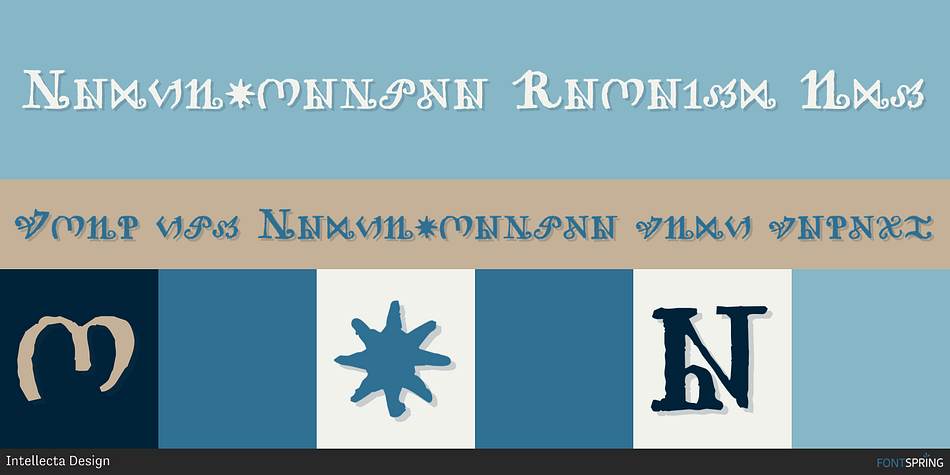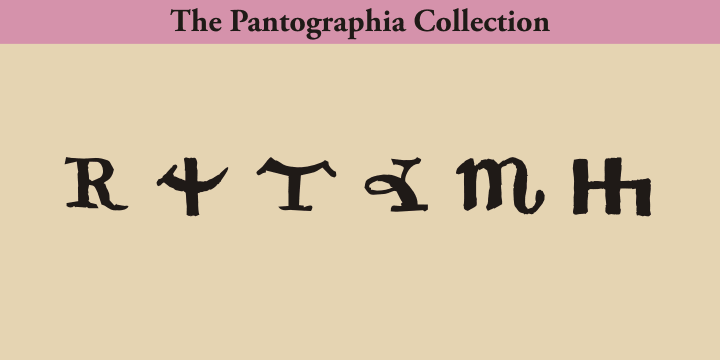
Pantographia Saracen One
Pantographia is an exotic, historical and novelty font family. This typeface has four styles and was published by Intellecta Design.
Pantographia Collection is a Intellecta digitization, in facsimile style, without artistical interpretation of any kind, of the work of Edmund Fry (monumental book), Pantographia, a work on languages containing over 200 alphabets.
Pantographia Collection is a Intellecta digitization, in facsimile style, without artistical interpretation of any kind, of the work of Edmund Fry (monumental book), Pantographia, a work on languages containing over 200 alphabets. We just are collecting in digital way these alphabets. Each alphabet has a short pdf description (see in the gallery). For example, in the pdf brochure of the “Saracen One” font, according to Edmund Fry,
{{“This characters, according to Theseus Ambrosius, was used by the Saracens at the time of their conquests. Claude Duret, p. 475.” Ambrosius, Theseus: Introductio in Chaldaicam lingua, Syriaca, atque Armenicam, [et] dece*. - 1539. Theseus Ambrosius or AMBROGIO, was an Italian orientalist, which born in 1469, and died in 1539 - He wrote his Introduction to the Chaldean, Syrian, Armenian, and ten other tongues, with the alphabetical characters of about forty different languages, 4to.” }}
The Pantographia font have only the original characters showed in Fry’s book. There are instructions in the PDF files to get them. These fonts have no philological (or linguistic) academic pretentions. They are digitized and faithful versions of the original, like first published at Fry’s book.